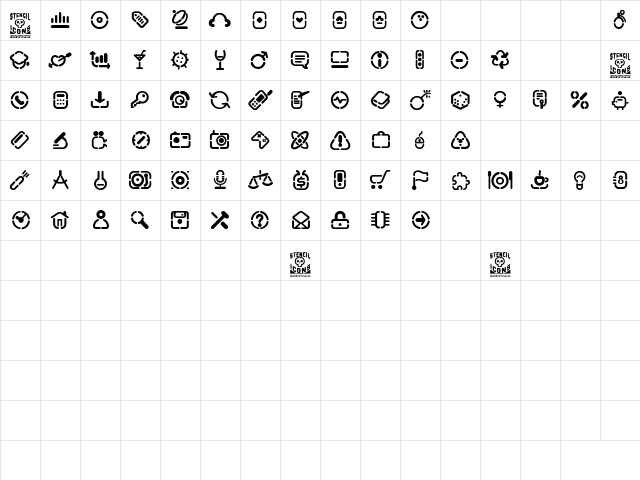
Stencil Icons Regular
Design Context for Stencil Icons Typeface
Stencil Icons has the rough pragmatism of spray-painted stencil signage, adding a raw, street-level authenticity to designs.
A strong choice for packaging that needs edge, warehouse aesthetics, and rough-and-ready visual identities.
Pro Tip: Use Stencil Icons at large sizes on packaging, posters, or apparel where the stencil cutaways read clearly. Avoid small sizes where those gaps become visual noise.